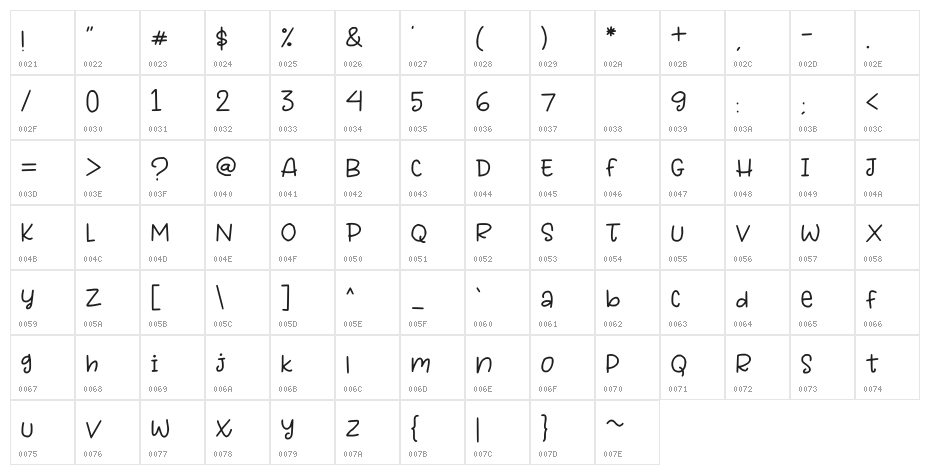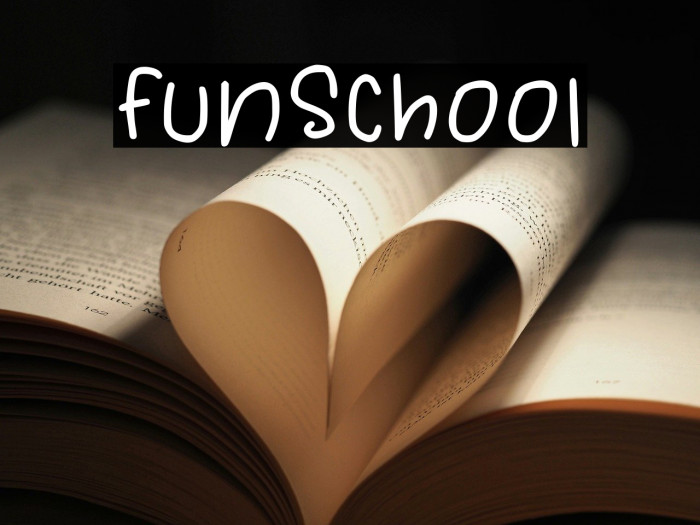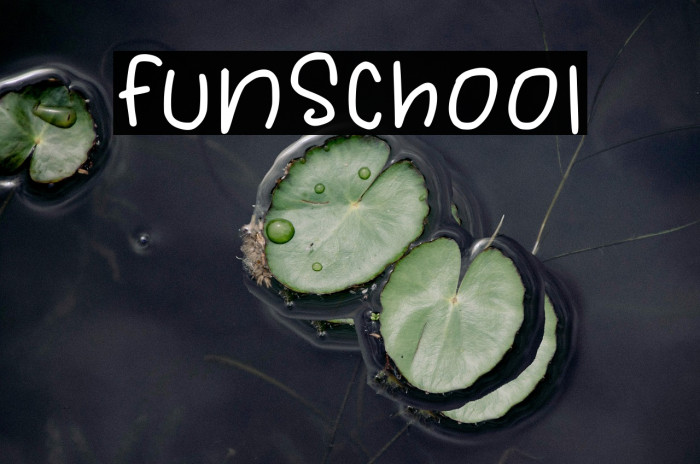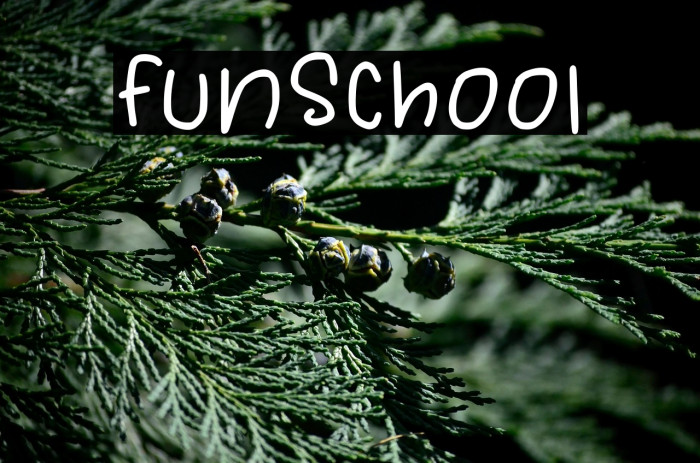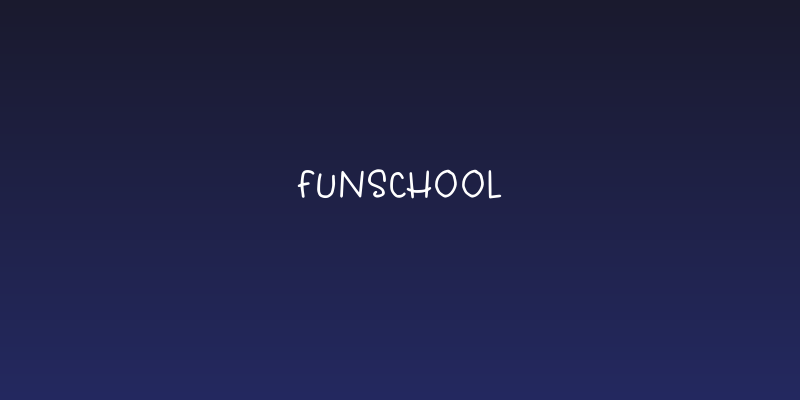
FunSchool Font
FunSchool Description
This playful and whimsical font features a handwritten style with a casual, friendly appearance. The characters are slightly irregular, adding to the charm and informal feel. The strokes are consistent in width, providing a uniform look despite the playful nature. The letters have a slight tilt, enhancing the handwritten effect. This font is perfect for projects that require a fun and approachable aesthetic, such as children's books, educational materials, or playful branding. The numbers and special characters maintain the same lively style, ensuring consistency across all text elements.
| Overall Style | Playful |
| Use Case | Headlines, Logos, Informal Text |
| Proposed Projects | Ideal for children's books, educational materials, playful branding, and casual invitations. |